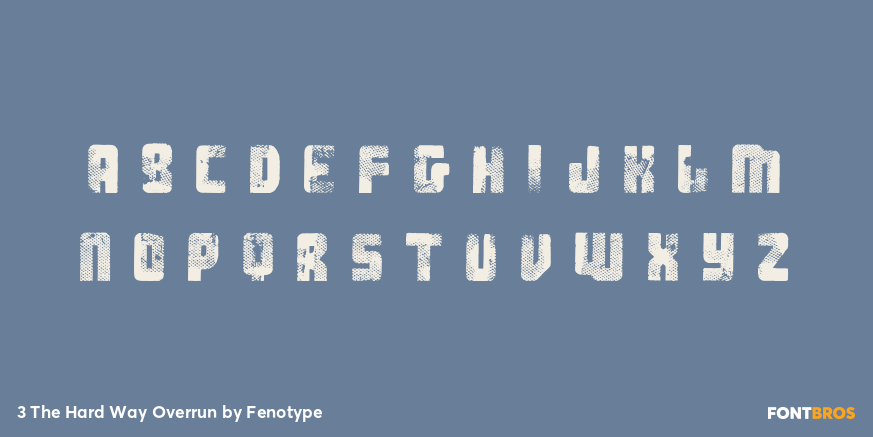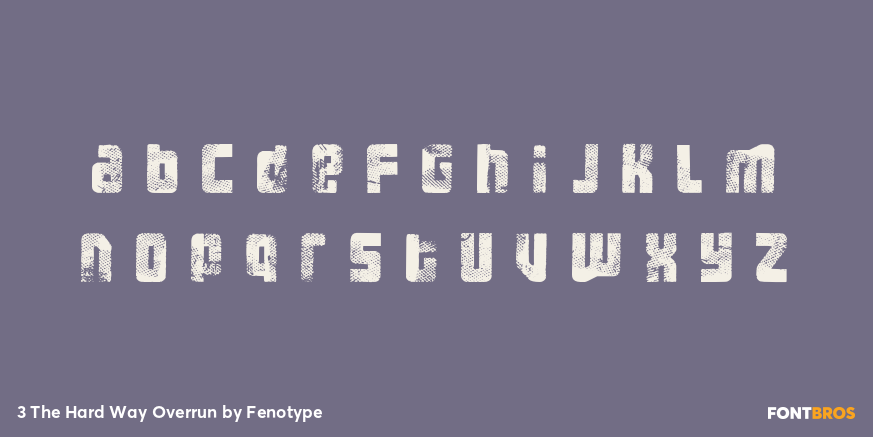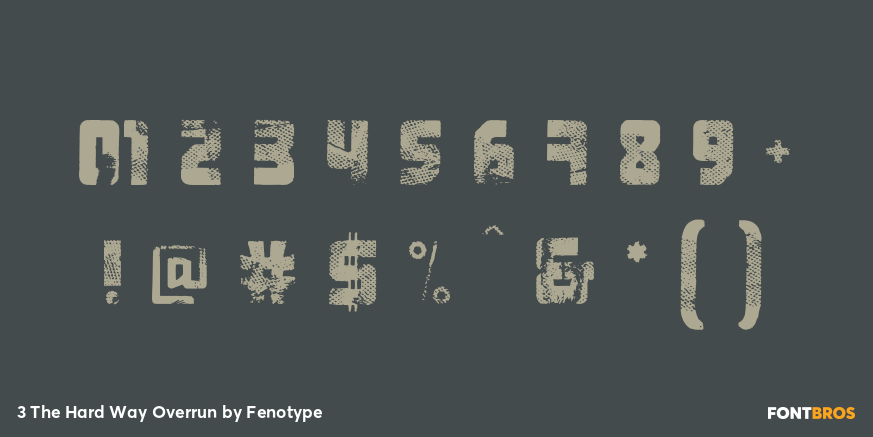
3 The Hard Way Overrun
3 The Hard Way Overrun is a distressed graffiti/urban display font from Fenotype with a rough, overrun texture that gives lettering an immediate streetwise, worn-in attitude. Its special effect styling pushes it firmly into expressive territory, making it a strong choice when clean typography would feel too polite.
Use it where you want bold personality and a raw visual edge: posters, music graphics, apparel, packaging, event flyers, signage, or branding that leans gritty and handmade. With its single style focus, this family is built for standout display work rather than quiet body copy.